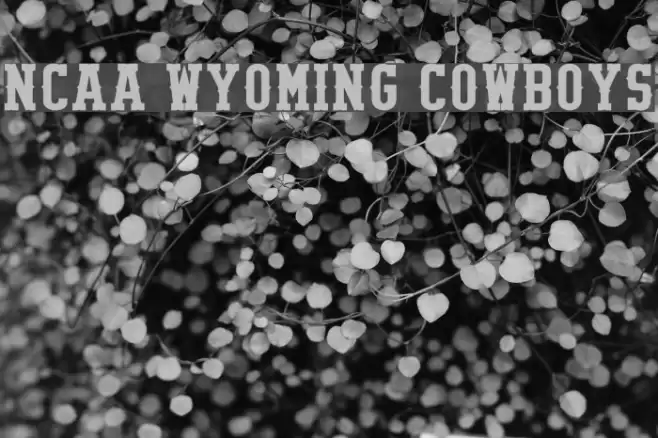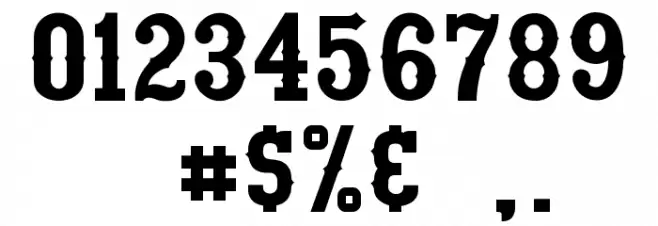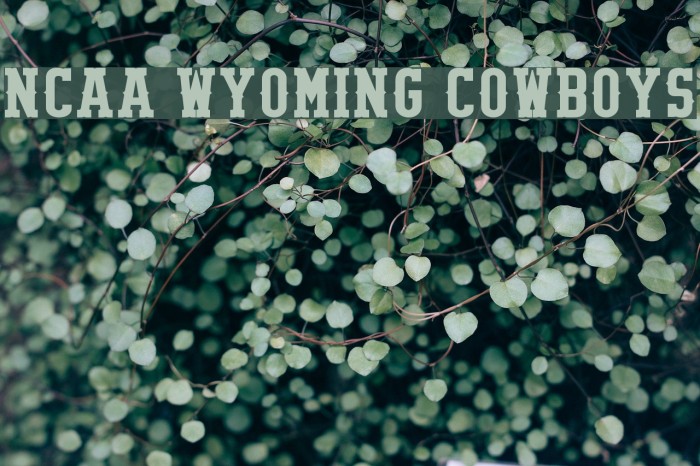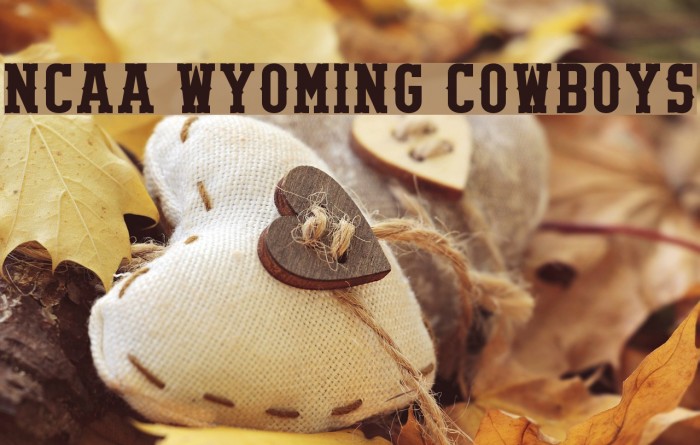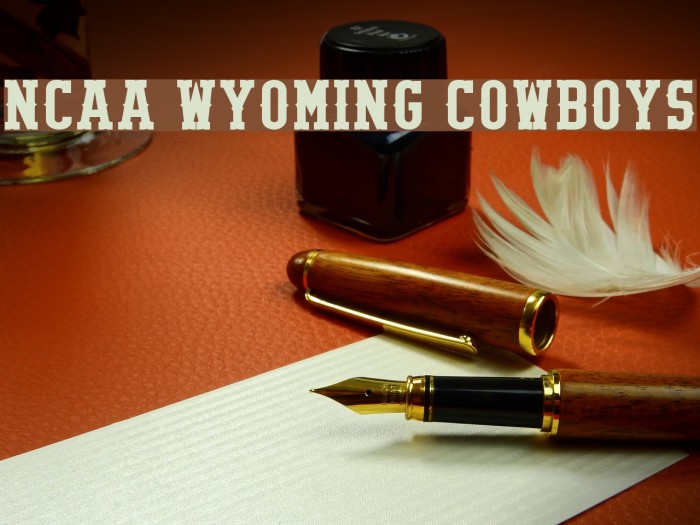
NCAA Wyoming Cowboys Font
NCAA Wyoming Cowboys Description
This font features a bold, slab serif style with strong, pronounced serifs that give it a robust and sturdy appearance. The characters are well-defined with a consistent weight throughout, providing a sense of uniformity and balance. The uppercase letters are particularly striking, with a commanding presence that makes them ideal for attention-grabbing headlines or titles. The numerals and special characters maintain the same boldness, ensuring cohesion across all text elements. The font's design is reminiscent of traditional Western typography, evoking a sense of ruggedness and adventure.
A bold, slab serif font with a Western-inspired design, ideal for impactful headlines from Uncategorized fonts.
- Proposed Projects: This font is perfect for projects that require a strong, bold typeface, such as posters, branding for outdoor or adventure-themed products, and signage. It can also be used effectively in editorial design for magazine covers or feature articles.
- Overall Style: Vintage
- Use Case: Headlines, Logos, Signage